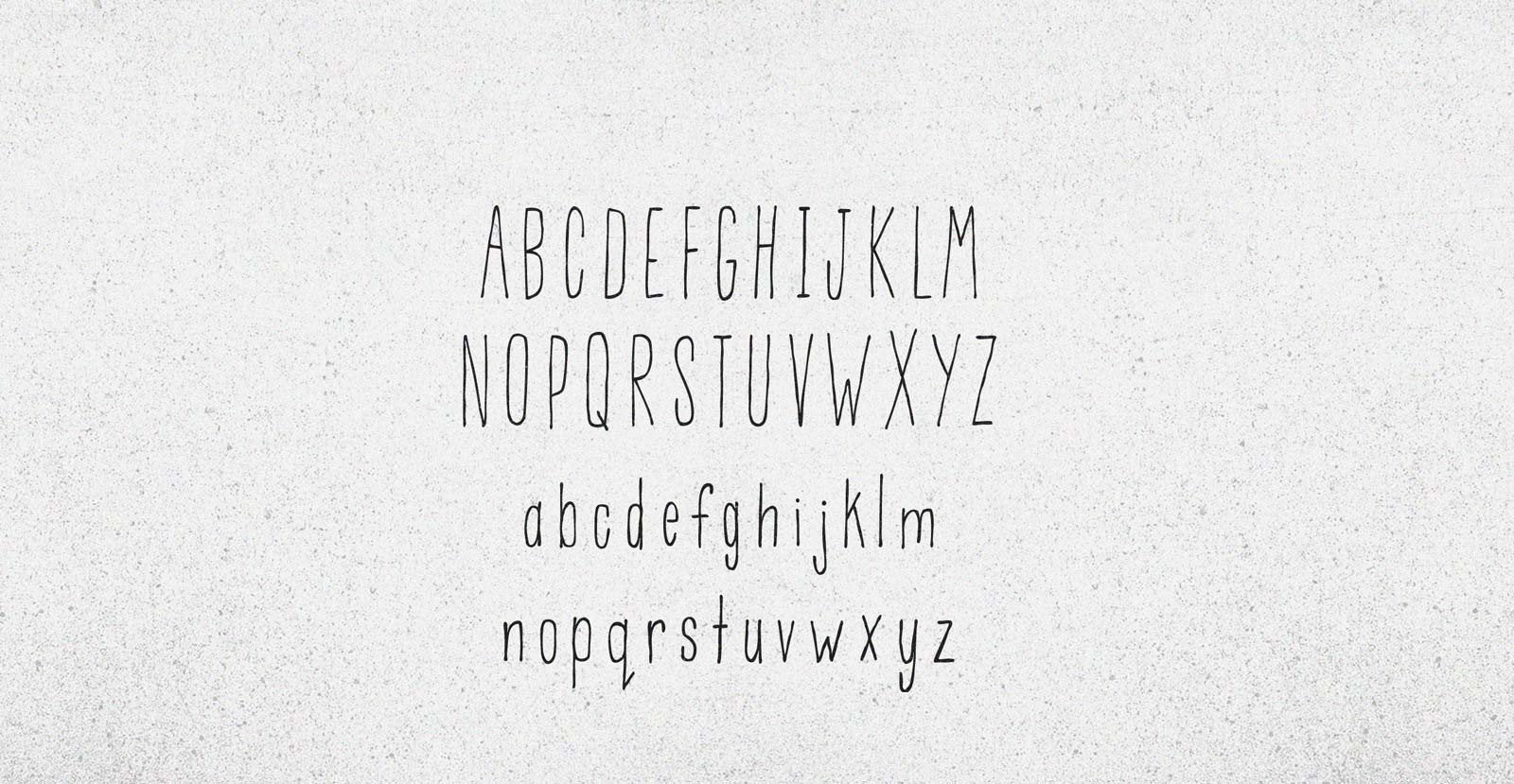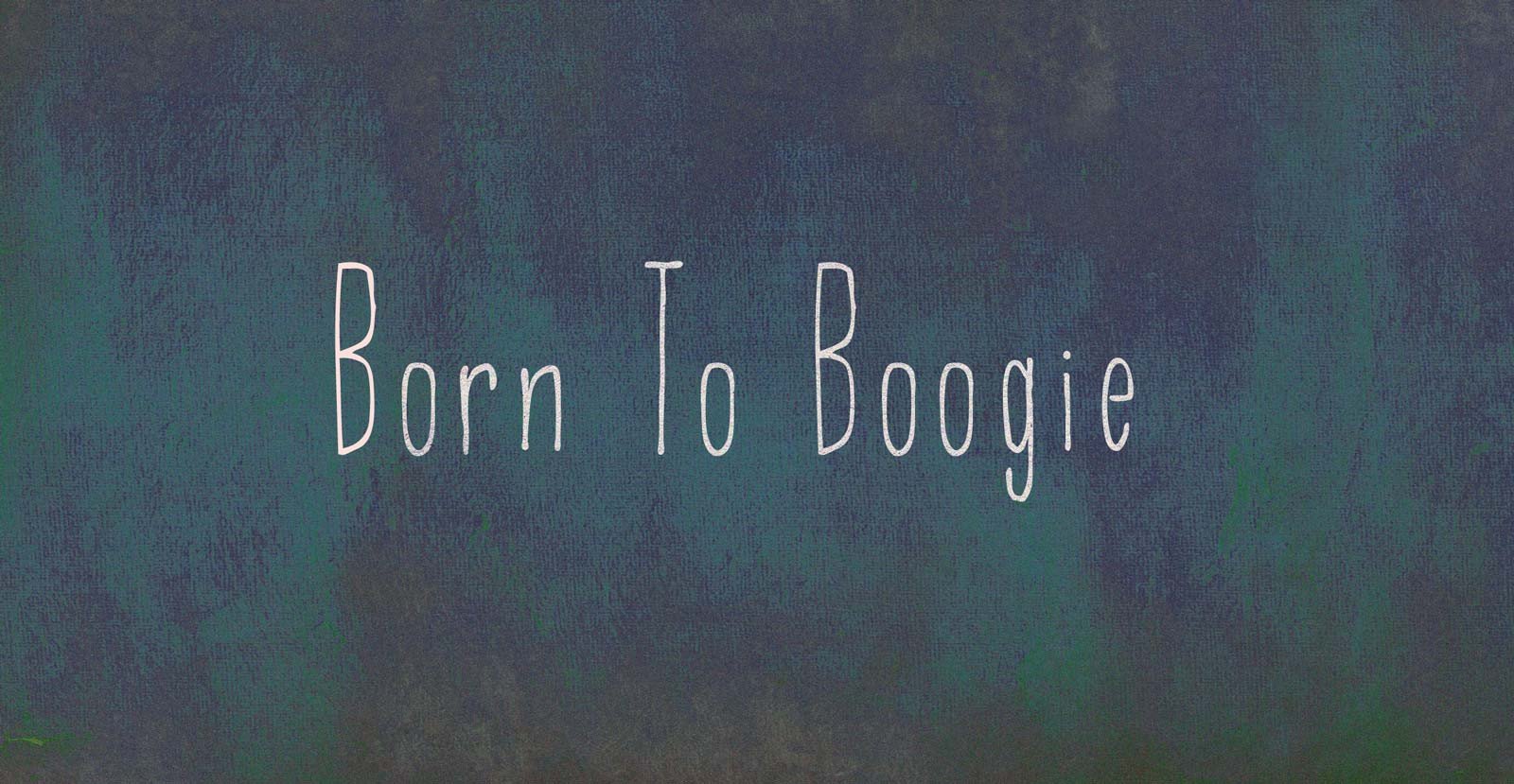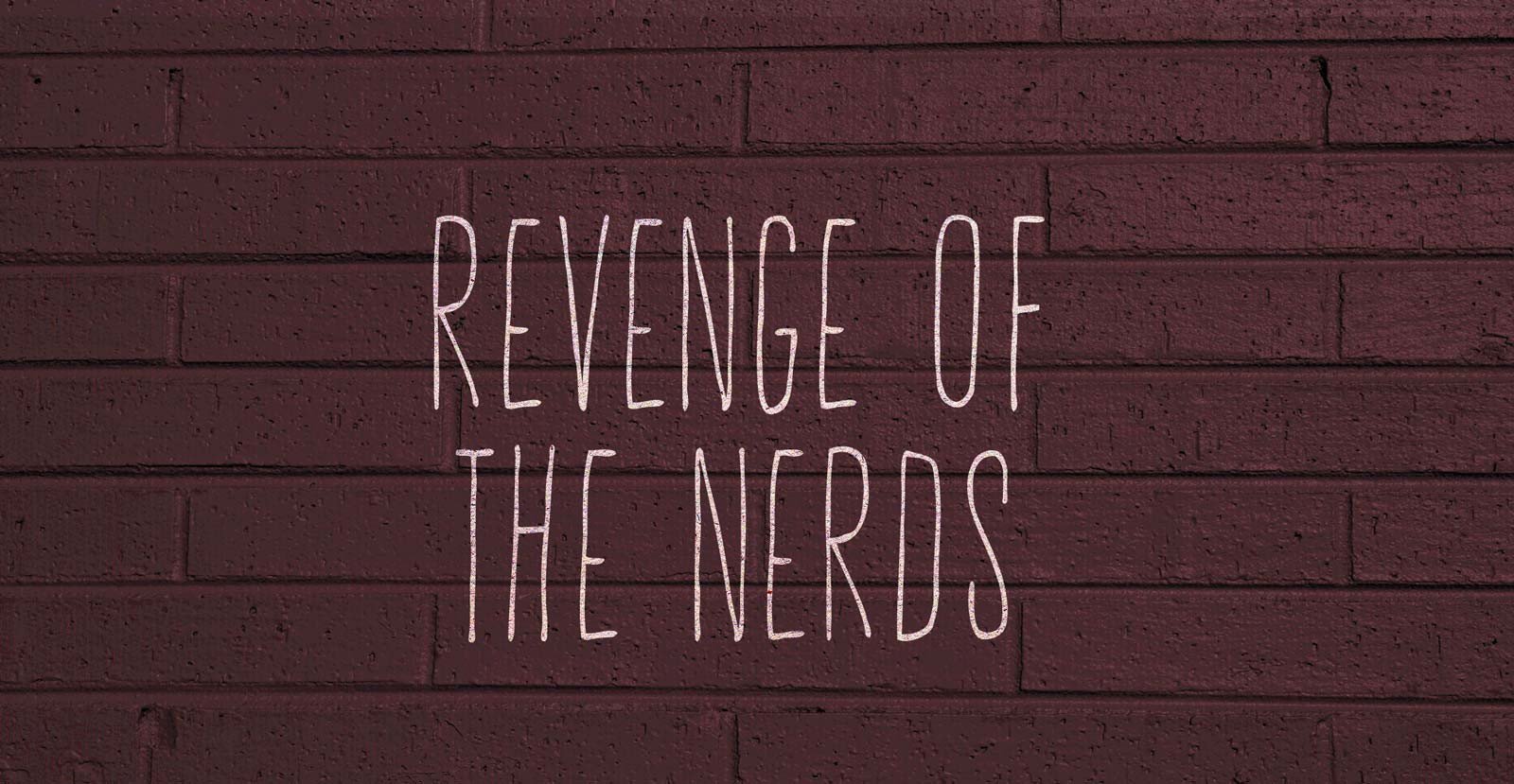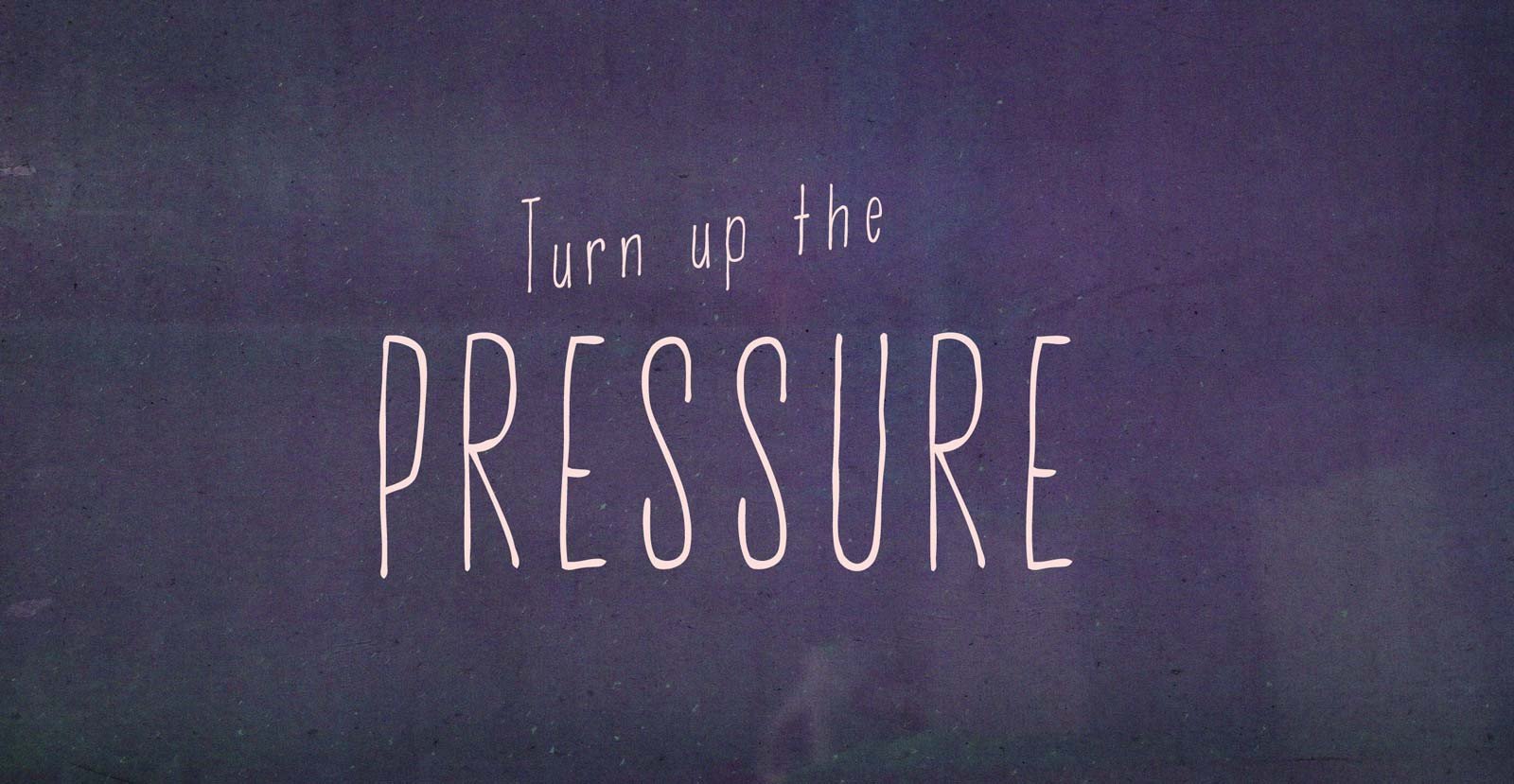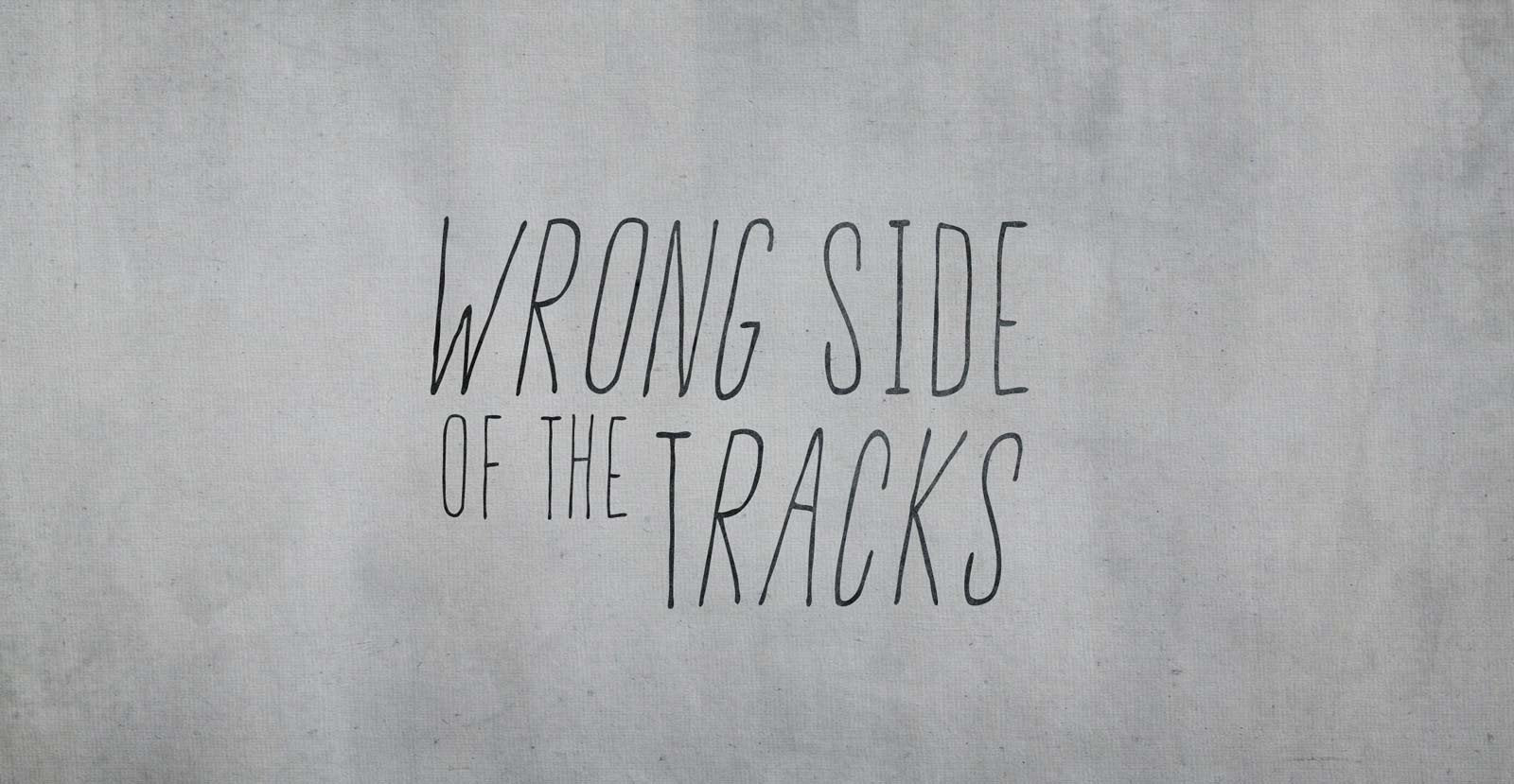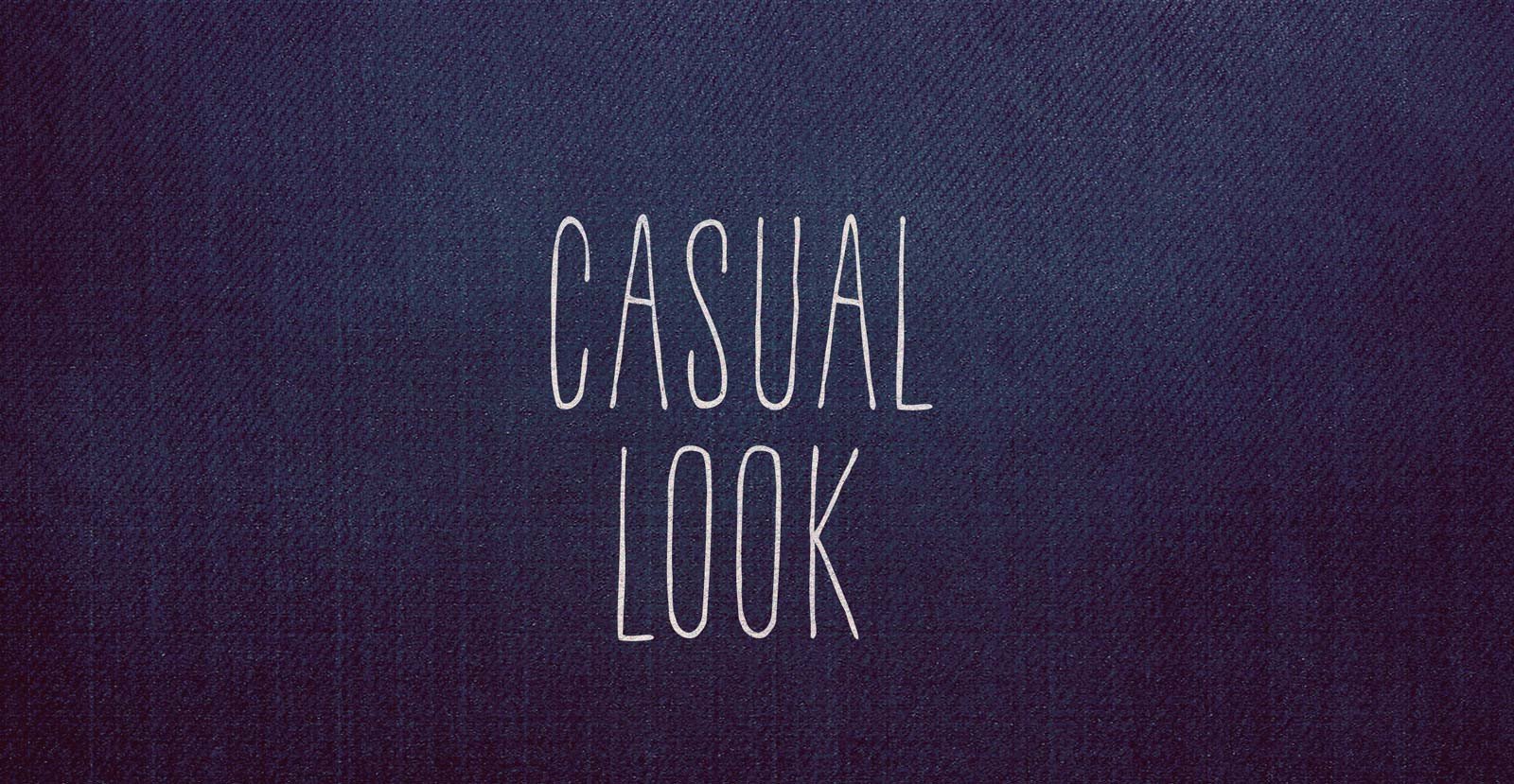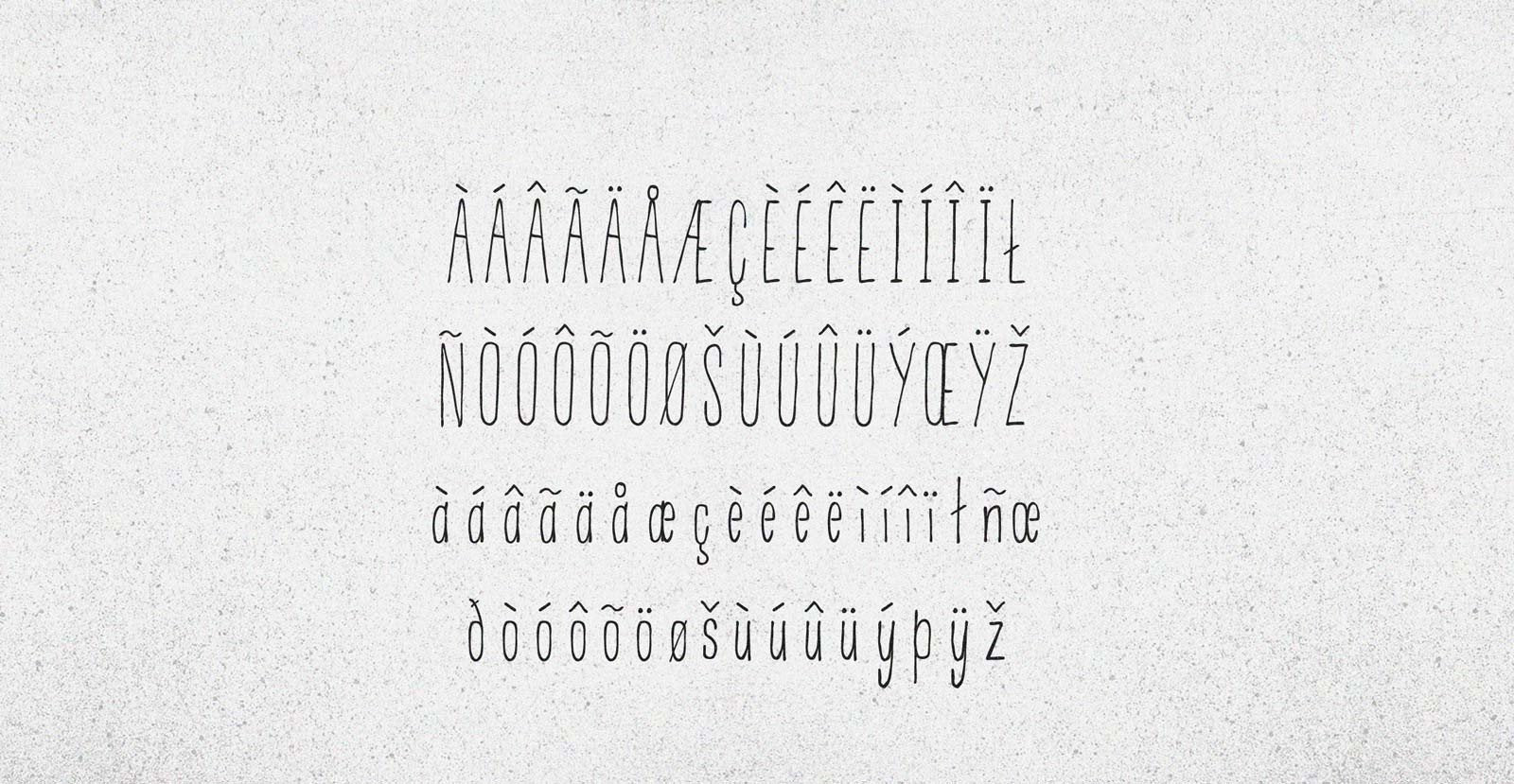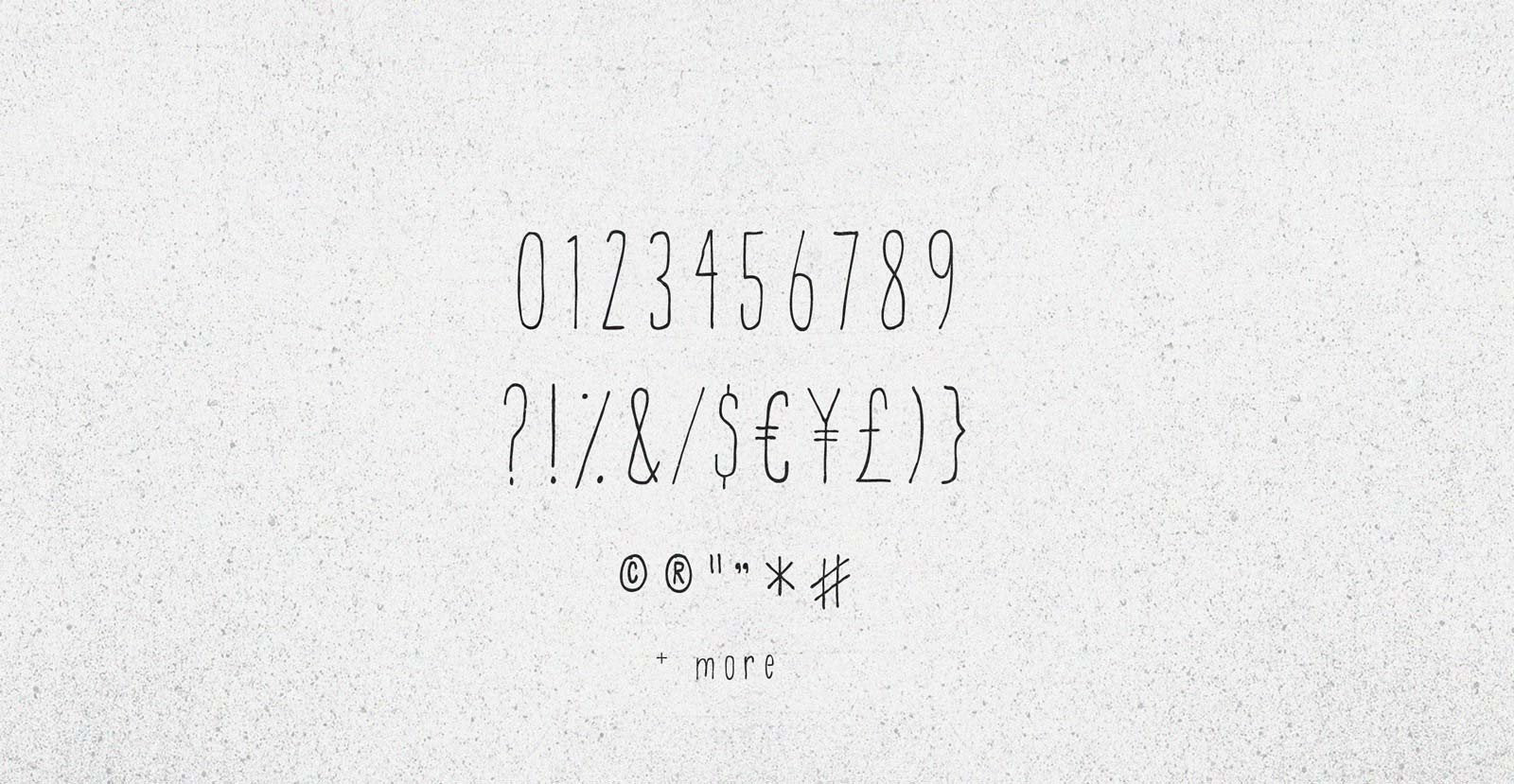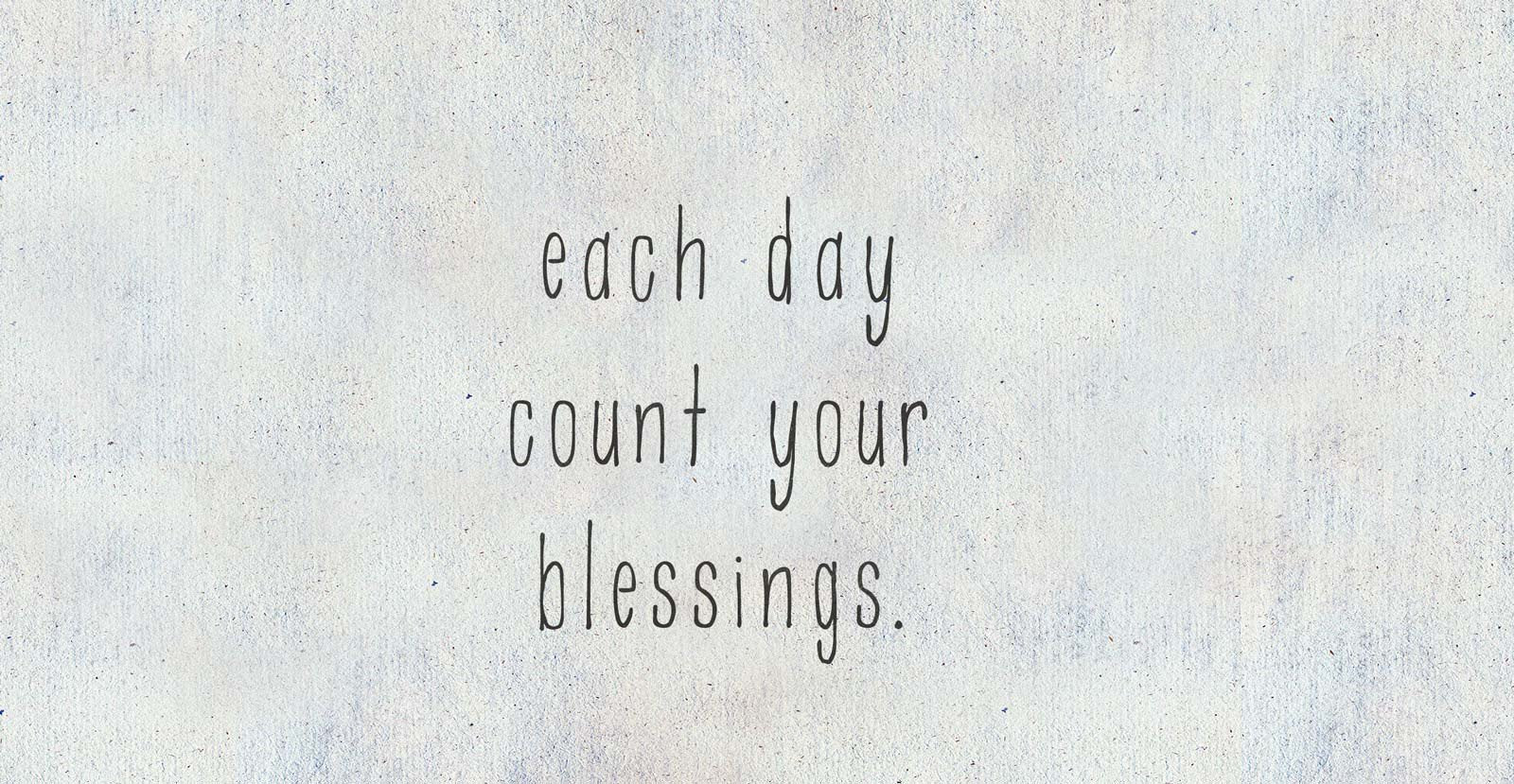
Casual Look
Handwritten Sans Serif Marker Font
Setting the kid jeans aside while eschewing suits that turn men into squeezed out tubes of toothpaste, we adopted timeless Americana. Everyone could see it was better. All it took was a Casual Look.